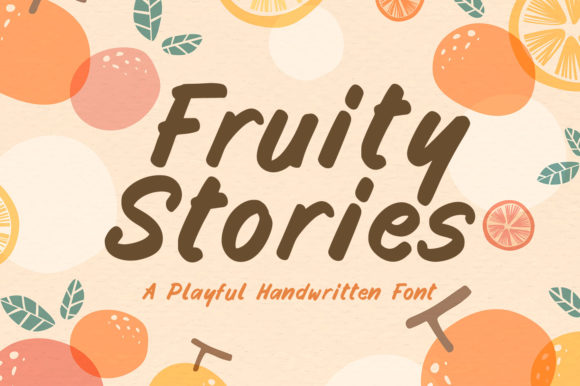
Behold, the Fruity Stories Font – A Bundle of Joy for Your Creative Endeavors!
Embark on a delightful journey with Fruity Stories, a display font family that oozes playfulness and charm. Let your imagination run wild as you explore the whimsical world of this font, where each letter dances with a unique personality.
With Fruity Stories, you can effortlessly capture the magic of childhood and evoke a sense of wonder. Whether you're crafting invitations for a joyous birthday party, designing cards to spread warmth and cheer, or creating posters for a playful school event, this font will be your perfect companion.
Immerse yourself in the vibrant colors and cheerful shapes of Fruity Stories. Let your designs blossom with the playful energy of this font, adding a touch of sweetness and happiness to every project you undertake.
Key Features that Make Fruity Stories Irresistible:
- A Playful and Animated Display Font: Fruity Stories is not just a font; it's an expression of joy and exuberance. Its lively characters bring an infectious energy to your designs, adding a touch of whimsy and delight.
- Perfect for Children-Themed Creations: Fruity Stories is a natural fit for any project related to children. With its playful and inviting style, this font will captivate young minds and create a magical atmosphere in your designs.
- Ideal for Invitations, Cards, and Posters: Whether you're designing invitations for a special occasion, creating greeting cards to spread joy, or crafting eye-catching posters for events, Fruity Stories will elevate your designs and leave a lasting impression.
- Easy to Use and Versatile: Fruity Stories is incredibly user-friendly and versatile. Its intuitive design makes it easy to incorporate into any project, allowing you to create stunning visuals effortlessly.